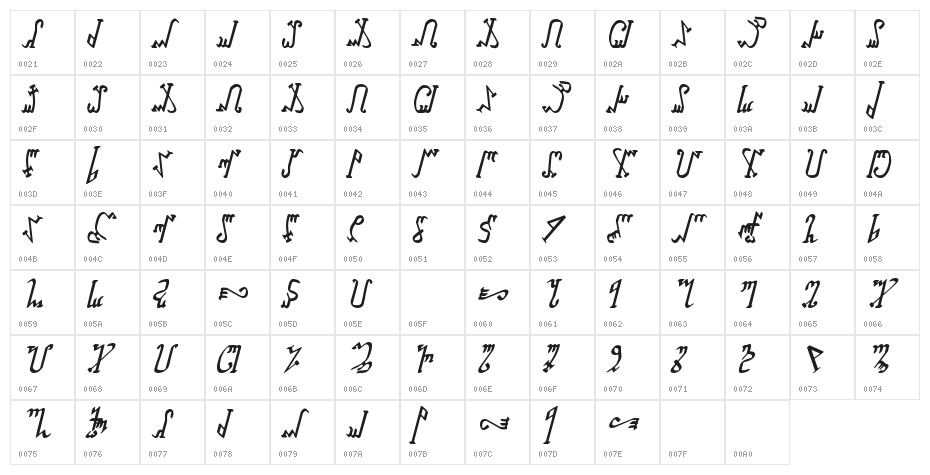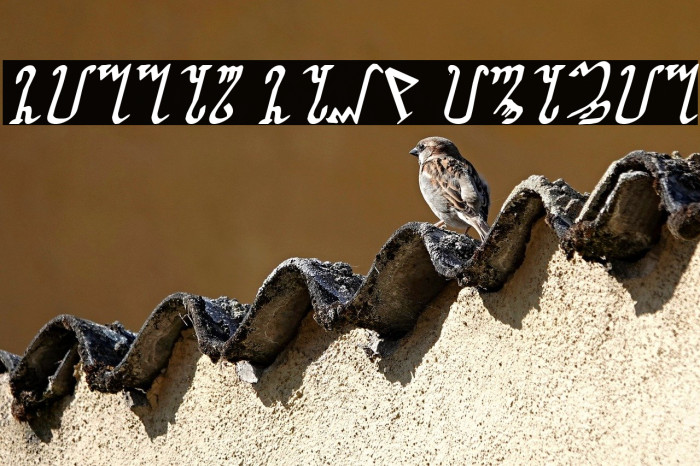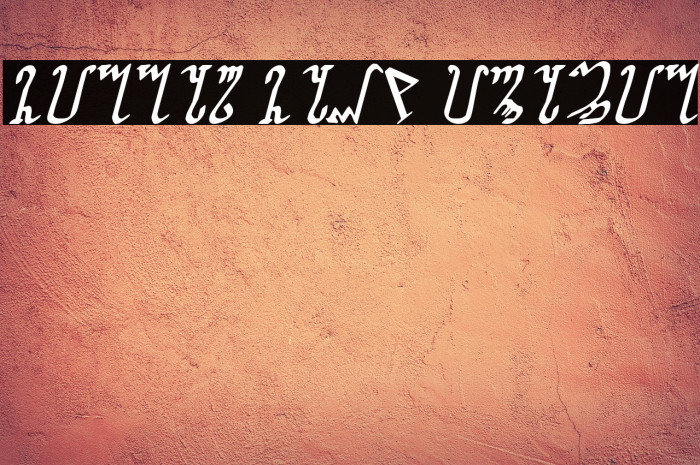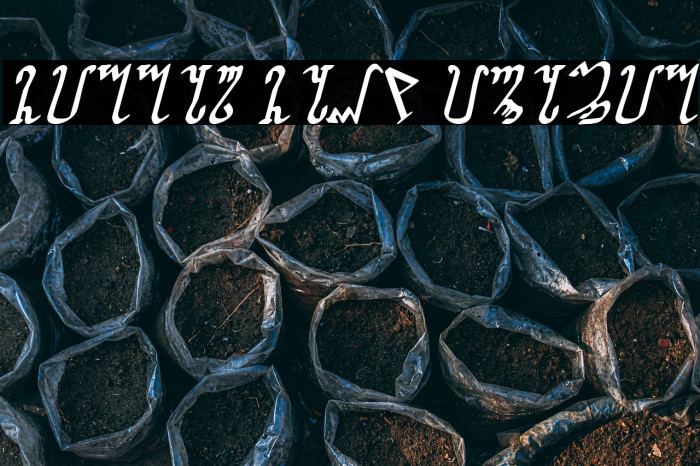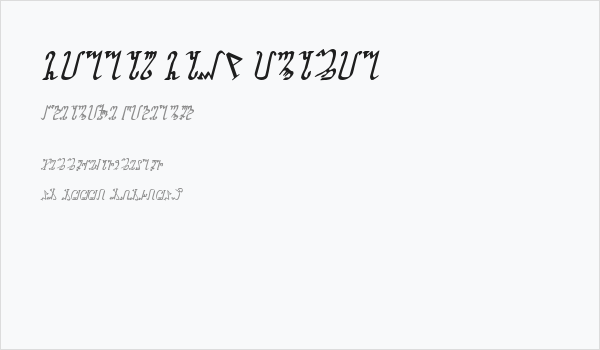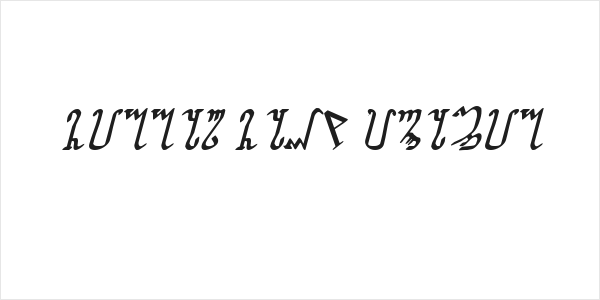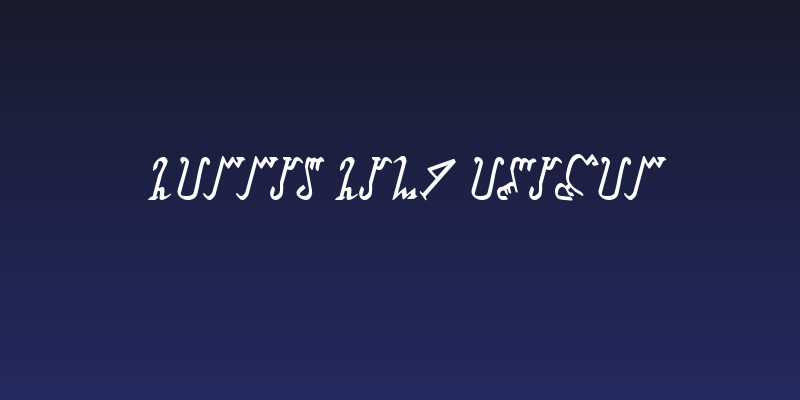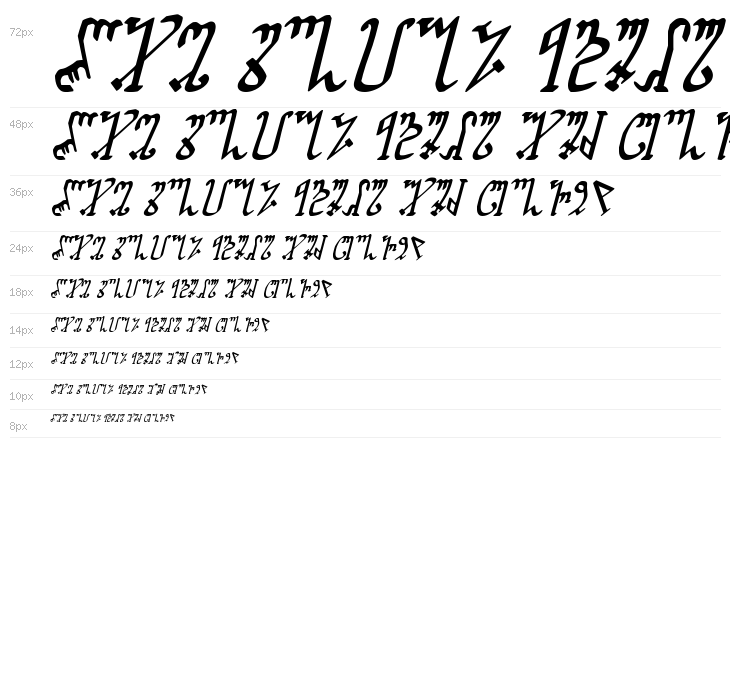
Wiccan Ways Italic Font
Wiccan Ways Italic Description
This font features a unique and mystical design, characterized by its angular and sharp strokes that give it an enigmatic and arcane appearance. The letters are heavily stylized, with each character exhibiting a distinct flair that suggests a handwritten, magical script. The overall look is both decorative and mysterious, making it ideal for projects that require a touch of fantasy or the supernatural. The italic slant adds to its dynamic and flowing nature, enhancing the sense of movement and energy within the text.
| Proposed Projects | Ideal for fantasy-themed projects, book covers, game designs, or any creative work that requires a mystical or supernatural touch. |